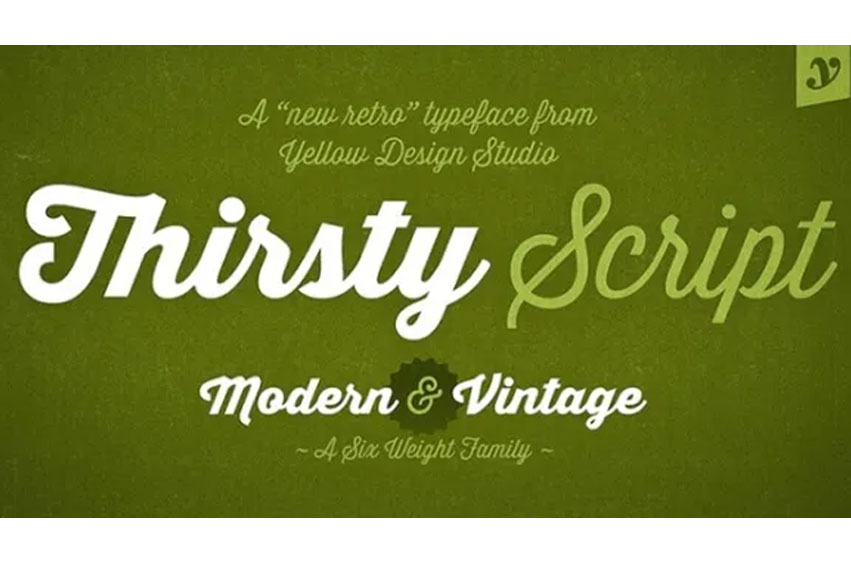
Thirsty Script Font is your time machine back to the retro era, delivering a unique and groovy script font that screams vintage charm.
This typeface showcases distinctive, bold, and groovy letterforms that exude nostalgia and charisma, making it the ideal choice for retro-themed projects.